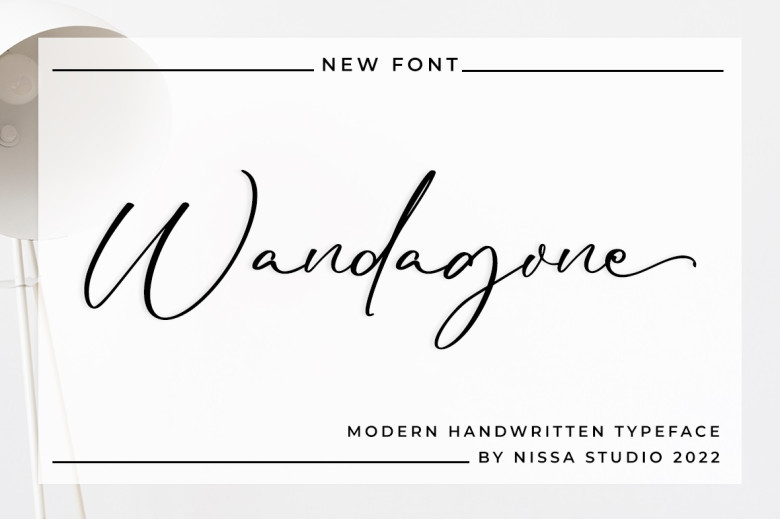
Wandagone Font
Wandagone is a beautiful and delicate handwritten font, Wandagone has a unique flavor with stunning impact. A Brief Feature Detail that will provide an element of luxury for any design you dream up! PUA encoded so you can access all of the magical glyphs and swashes just from everywhere!
Wandagone Handwritten Script Font